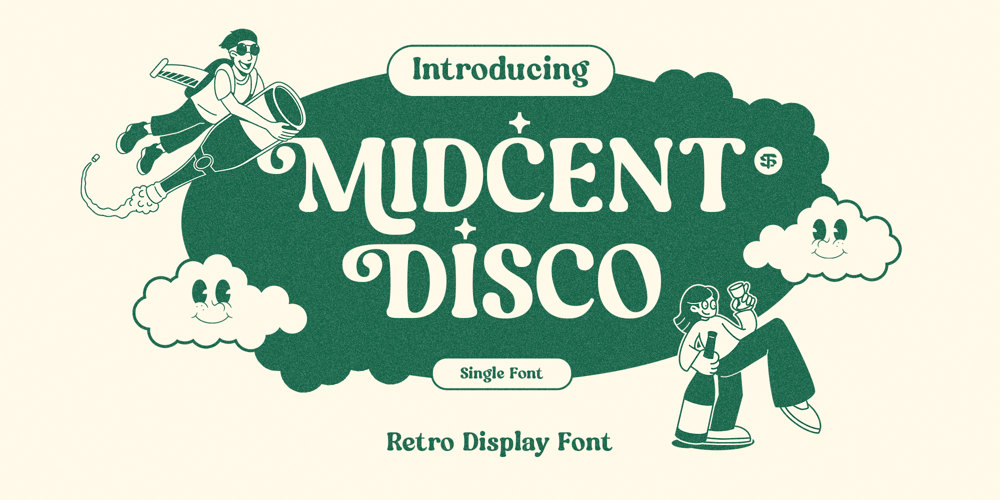
Midcent Disco Font Family was designed by Mhd Husaini and published by Sixtype Foundry. Midcent Disco contains 1 styles and family package options. Midcent Disco is a font that mixes vintage vibes with modern style. It’s perfect for making cool posters, catchy logos, trendy websites, and attractive packaging. With its bold look and wide letters, it brings back the feel of the 1960s while still looking fresh today. Whether you’re designing a logo or a webpage, Midcent Disco adds a touch of retro charm and timeless elegance to anything you create.